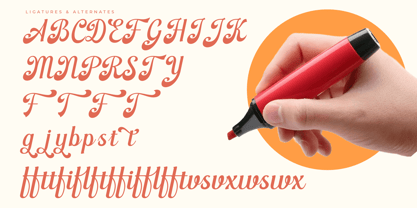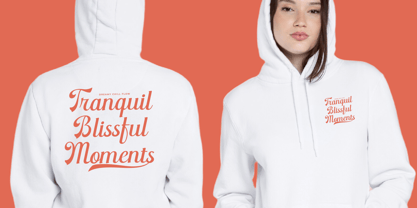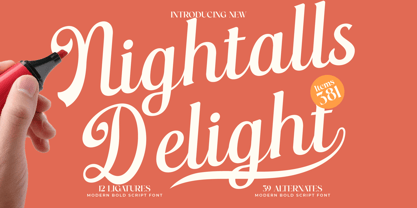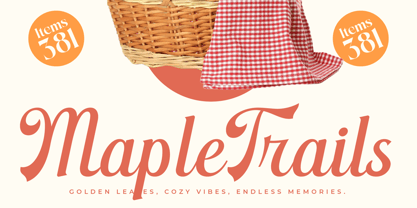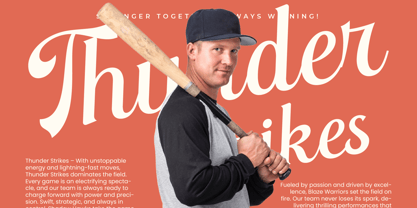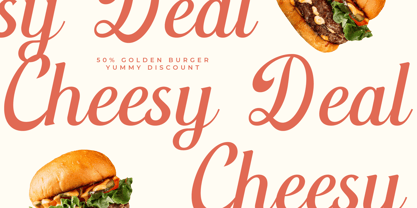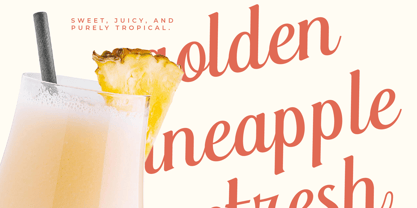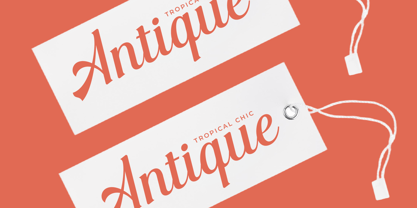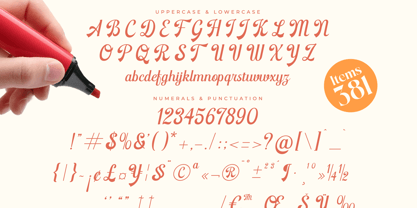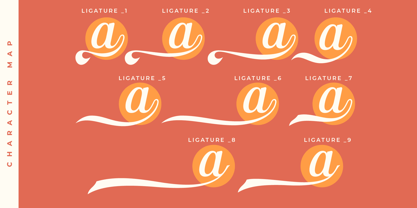
Nightalls Delight
by Timelesstype Studio
The Nightalls Delight Font Family was designed by Heru Utama Putra and published by Timelesstype Studio. Nightalls Delight contains 2 styles and family package options. More about this family
Nightalls Delight - Modern Bold Script Font , from Timelesstype, Suitable for any projects such as: logos, branding projects, homeware designs, product packaging, mugs, quotes, posters, shopping bags, t-shirts, book covers, name card, invitation cards, greeting cards, label, photography, watermark, special events, and all your other luxury and beautiful projects that need a Luxury Script taste.
Nightalls Delight